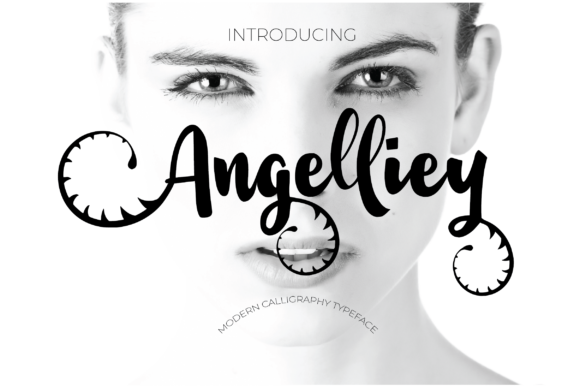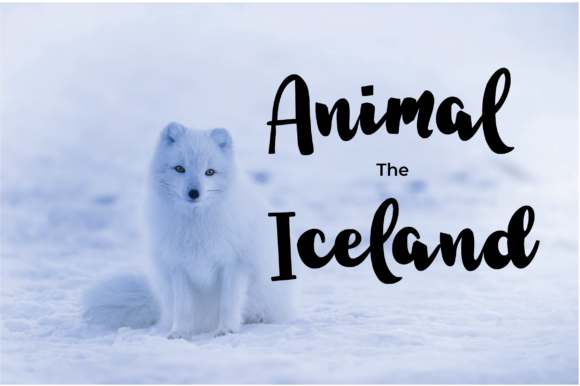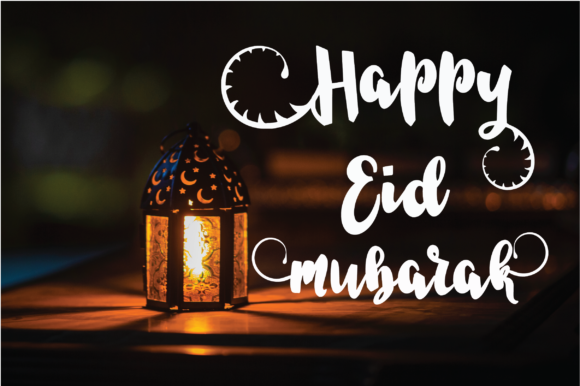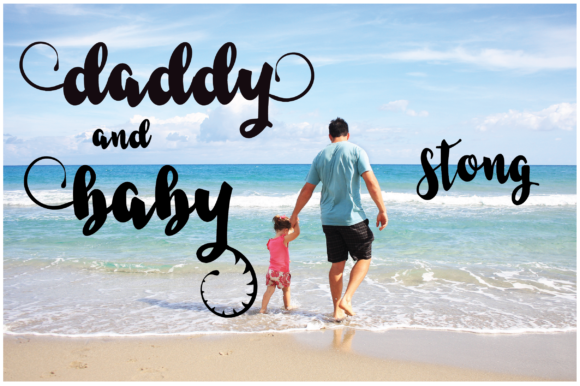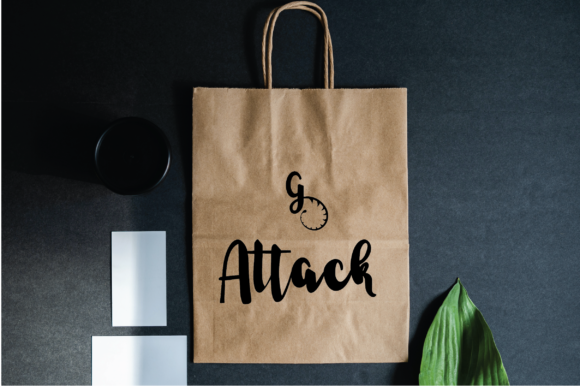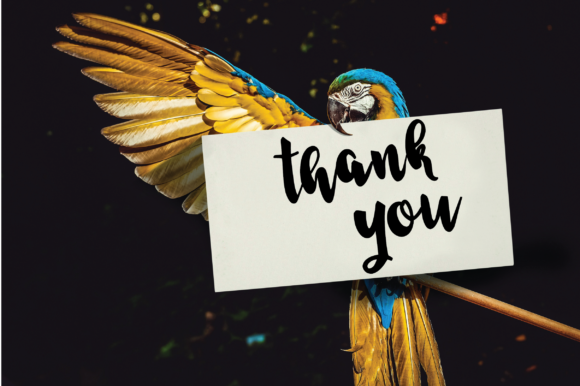
Angelliey Font
About Angelliey Font
Meet Angelliey, a contemporary calligraphy font meticulously crafted by hand to bring a modern and unique writing style to your projects. With its natural and flowing design, Angelliey captures the essence of modern calligraphy, adding a touch of elegance and individuality to your creative endeavors.
The distinct charm of Angelliey lies in its handcrafted nature. Each stroke is thoughtfully designed, resulting in a font that is not only modern but also possesses a unique character. The flowing lines and carefully crafted curves create a writing style that feels natural and authentic, making it a standout choice for a variety of design applications.
Angelliey’s modern calligraphy is versatile and well-suited for a range of creative projects. Whether you’re working on invitations, branding, social media graphics, or any other design, Angelliey adds a contemporary and stylish touch. Its fluid writing style adapts seamlessly to different contexts, bringing a sense of sophistication to your work.
The hand-designed nature of Angelliey ensures that it stands out in the realm of modern calligraphy fonts. The unique writing style adds a personal and artistic touch, making it perfect for projects that require a distinct and memorable aesthetic. Whether used for logos, wedding materials, product packaging, or any other application, Angelliey infuses your designs with a modern elegance.
In summary, Angelliey is more than just a font; it’s a testament to the artistry of modern calligraphy. With its unique writing style and handcrafted design, Angelliey brings a natural and contemporary elegance to your projects. Embrace the beauty of handwritten expression with Angelliey, where modernity meets the timeless allure of calligraphy.